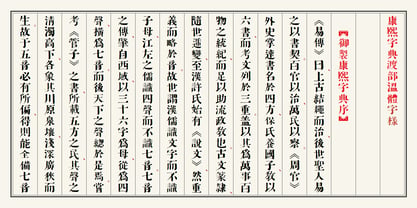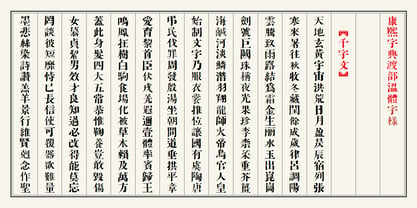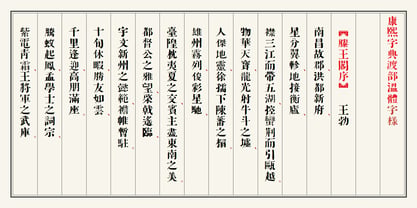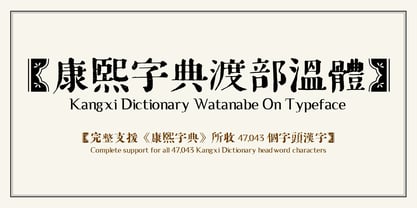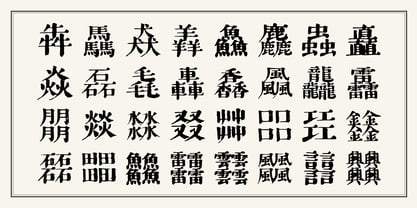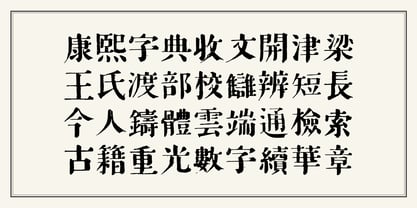
KangXi Dictionary Watanabe
Rediscovering the Masterpiece Across Borders: Kangxi Dictionary Watanabe On Typeface
A Monumental Transnational Revival of Chinese Typographic History — The Complete 47,043-Character Edition
The KangXi Dictionary (1716 AD), commissioned by the KangXi Emperor of the Qing Dynasty, stands as the ultimate authority on classical Chinese logographs. In 1886 (the 19th year of the Meiji era), the Japanese scholar Watanabe On (渡部温) undertook a monumental philological endeavor: meticulously cross-referencing, correcting, and re-engraving the dictionary to enhance its clarity, structural stability, and scholarly utility.
Today, the Kangxi Dictionary Watanabe On Typeface brings the profound soul of this historical cross-cultural masterpiece into the digital age. This definitive release is presented as a fully completed monumental reconstruction, encompassing the dictionary’s entire 47,043-character set. It seamlessly bridges the authoritative weight of Qing dynasty imperial tradition with the rigorous precision of late-Edo and early-Meiji woodblock craftsmanship, offering a sophisticated, uncompromised tool for modern international typography.
The "Watanabe On" Distinction
Unlike standard digital fonts or direct facsimiles, the Watanabe On Typeface captures the distinctive fusion of Chinese imperial aesthetics and Japanese editorial precision. It honors the clean, sharp, yet deeply organic line work characteristic of Watanabe On’s 1886 corrected woodblock edition. By preserving the subtle texture where ink settled into the finely carved grain of the blocks, this font delivers a tangible historical warmth, stability, and scholarly gravitas that modern, sterile vector fonts can never replicate.
Key Technical Features:
• The Definitive 47,043-Character Set: This release is a fully-realized masterwork, containing all 47,043 historical character headers from the original dictionary. From foundational literary characters to the rarest historical nomenclature, it provides unparalleled, exhaustive coverage for academic and creative use.
• A Completed Digital Heritage Monument: Representing years of exhaustive engineering, this full edition eliminates the need for partial updates. By acquiring this font, you gain immediate access to a complete, historically synchronized character ecosystem that preserves the ultimate scale of ancient lexicography.
• Cross-Border Precision Engineering: Every single one of the 47,043 strokes and glyph metrics has been rigorously calibrated to maintain the balance between the classic "Songti" (Serif) structure and the unique, disciplined structural balance introduced by Watanabe On’s 1886 workshop.
• Authentic Bibliographic Spirit: Rather than pursuing cold, computerized perfection, this revival focuses entirely on capturing the "Shenyun" (divine spirit) and the academic exactitude of the historical prints. It preserves the natural, lively essence of intercultural block carving, ensuring each character radiates historical depth and editorial elegance.
Ideal Design Uses:
• Premium & Academic Publishing: Perfect for historical literature, cross-cultural studies, comprehensive academic journals, and prestigious museum exhibition monographs requiring rare character support.
• Global Cultural Branding: Highly recommended for high-end tea packaging, traditional Asian medicine, luxury heritage goods, and premium culinary brands seeking an authentic East Asian identity.
• Fine Art & Editorial Design: Its bold, authoritative, yet meticulously balanced presence makes it a standout choice for book covers, exhibition titles, theatrical posters, and large-scale architectural signage.
Designed by Tan Keong Khon
Born from a lifelong passion for preserving digital cultural heritage and font engineering, this revival ensures that the profound legacy of the Kangxi Dictionary—and the cross-cultural dedication of Watanabe On—continues to inspire and empower global designers in the 21st century.
Designers: Tan Keong Khon
Foundry: KangXiZiDian
About KangXiZiDian
KangXiZiDian is a professional digital type foundry specializing in the high-fidelity reconstruction and preservation of historical East Asian lexicons. Based on decades of research into traditional woodblock printing, our studio bridges the gap between ancient philology and modern font technology. We utilize advanced AI-assisted vectorization and precision stroke-recovery techniques to transform classical scripts—most notably the monumental Kangxi Dictionary—into high-resolution, standards-compliant digital typefaces. Our mission is to provide global designers, scholars, and publishers with authentic, full-scale character sets that maintain the aesthetic integrity of historical ink-on-paper artifacts while meeting the rigorous technical demands of contemporary digital publishing and high-end branding.